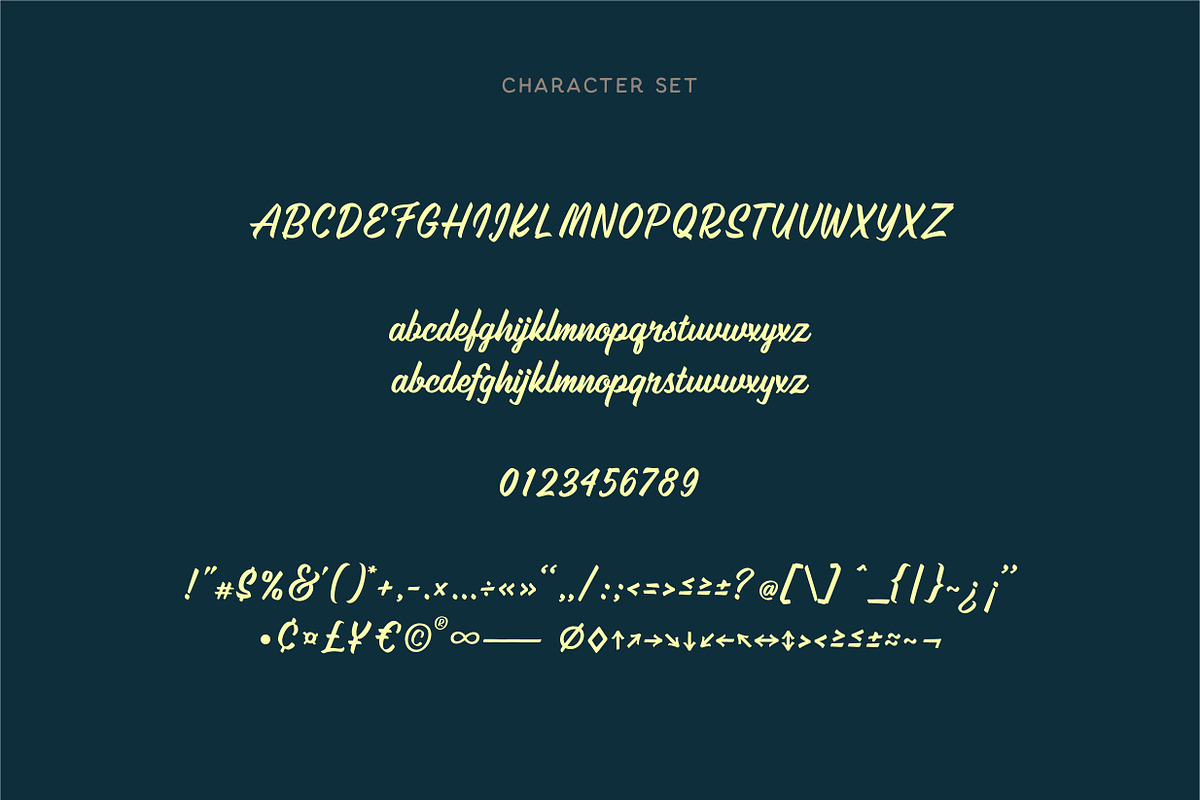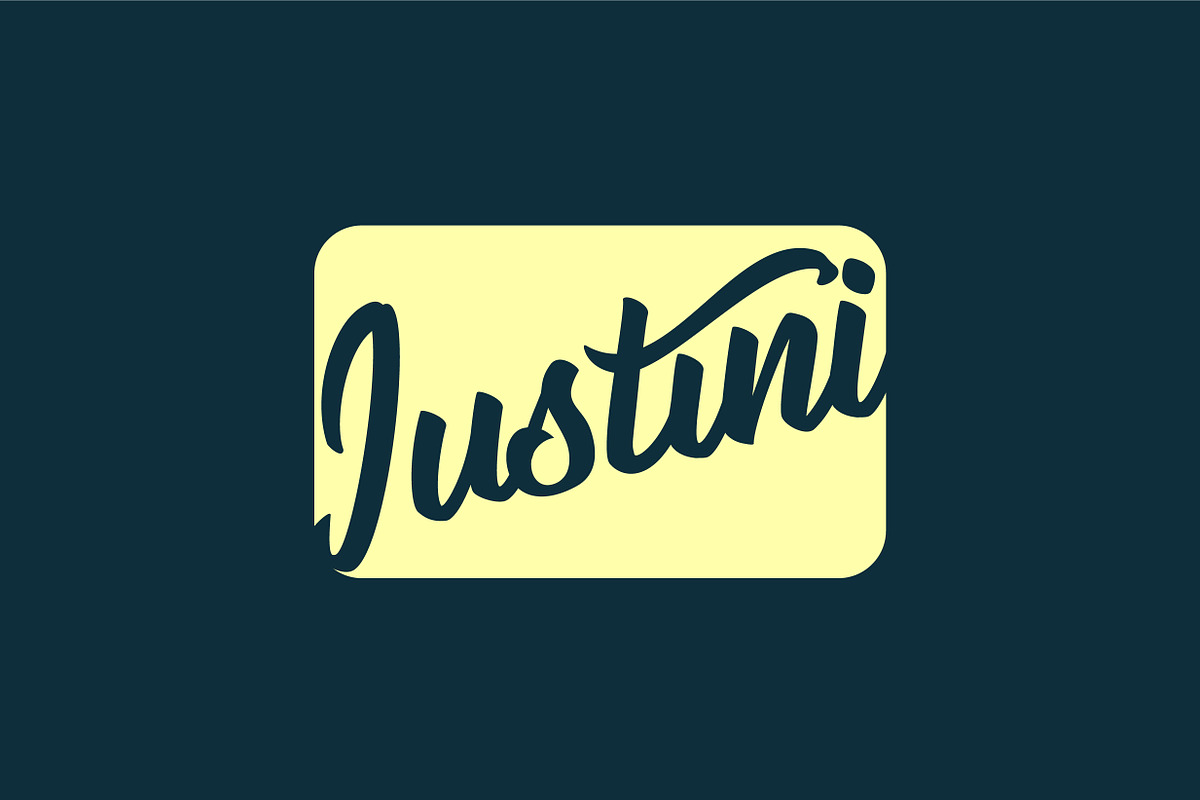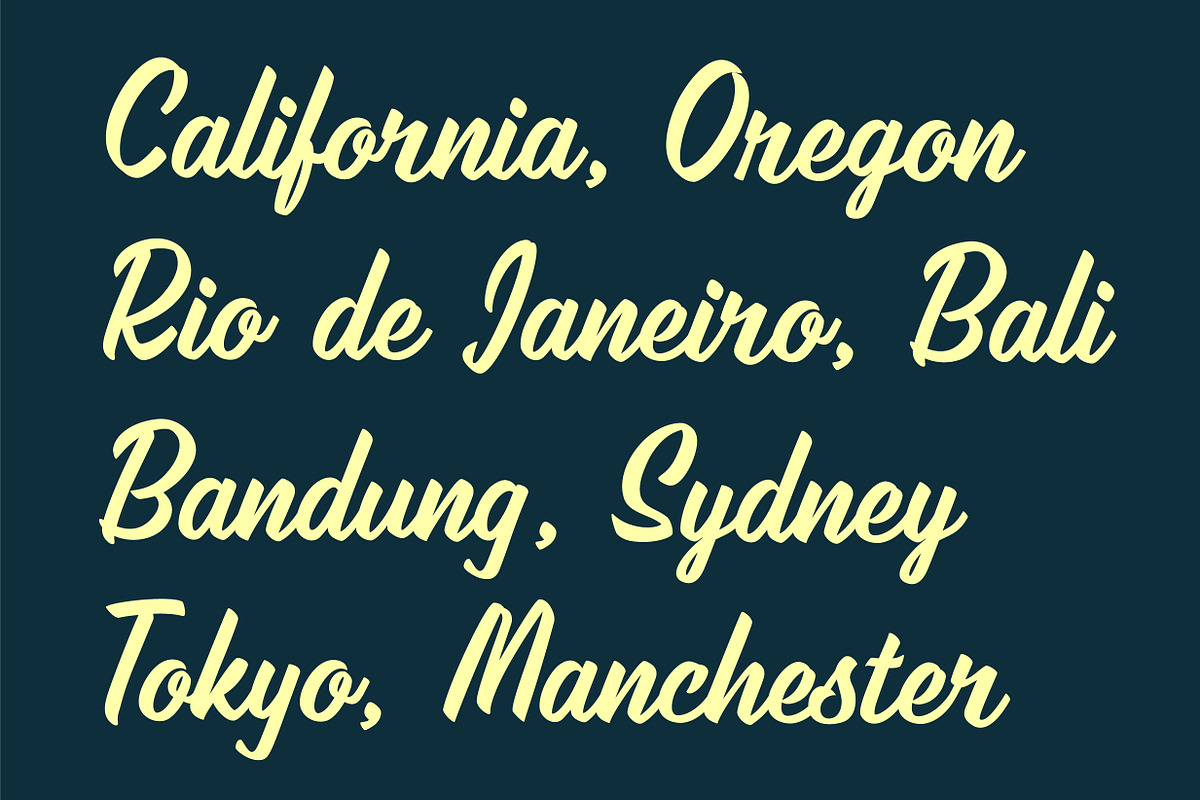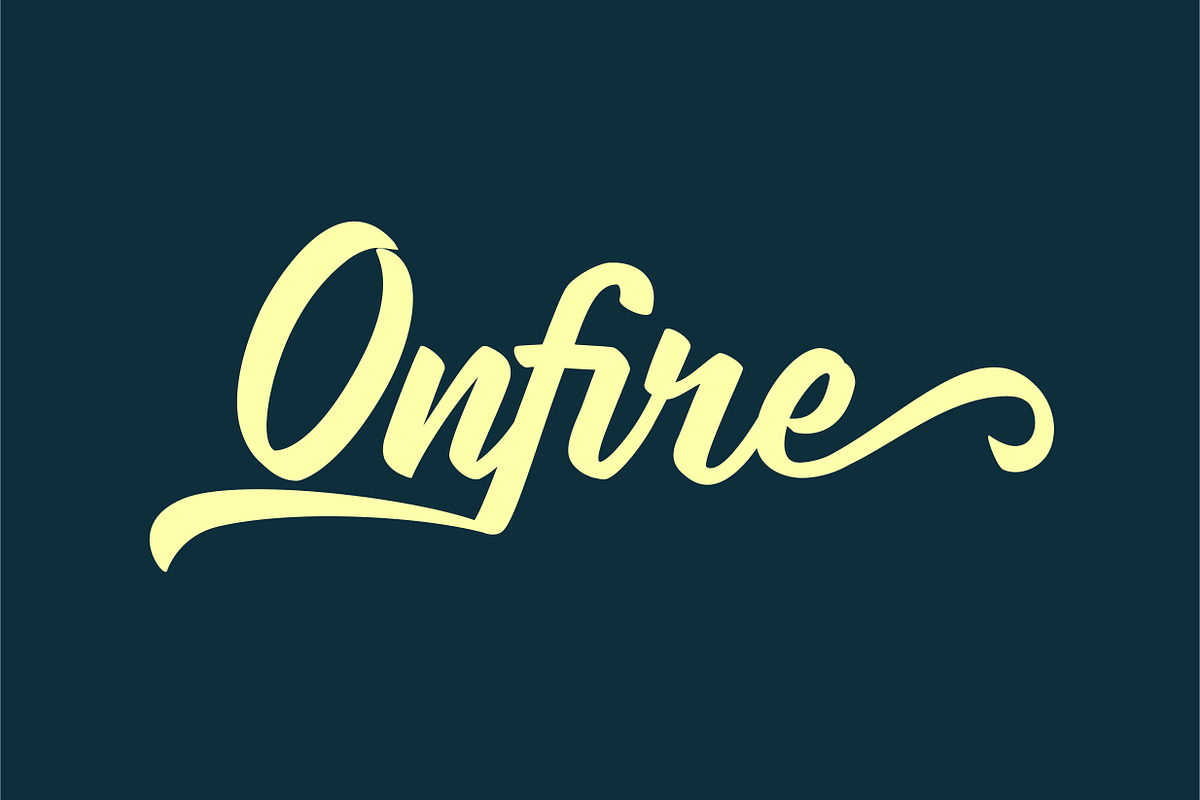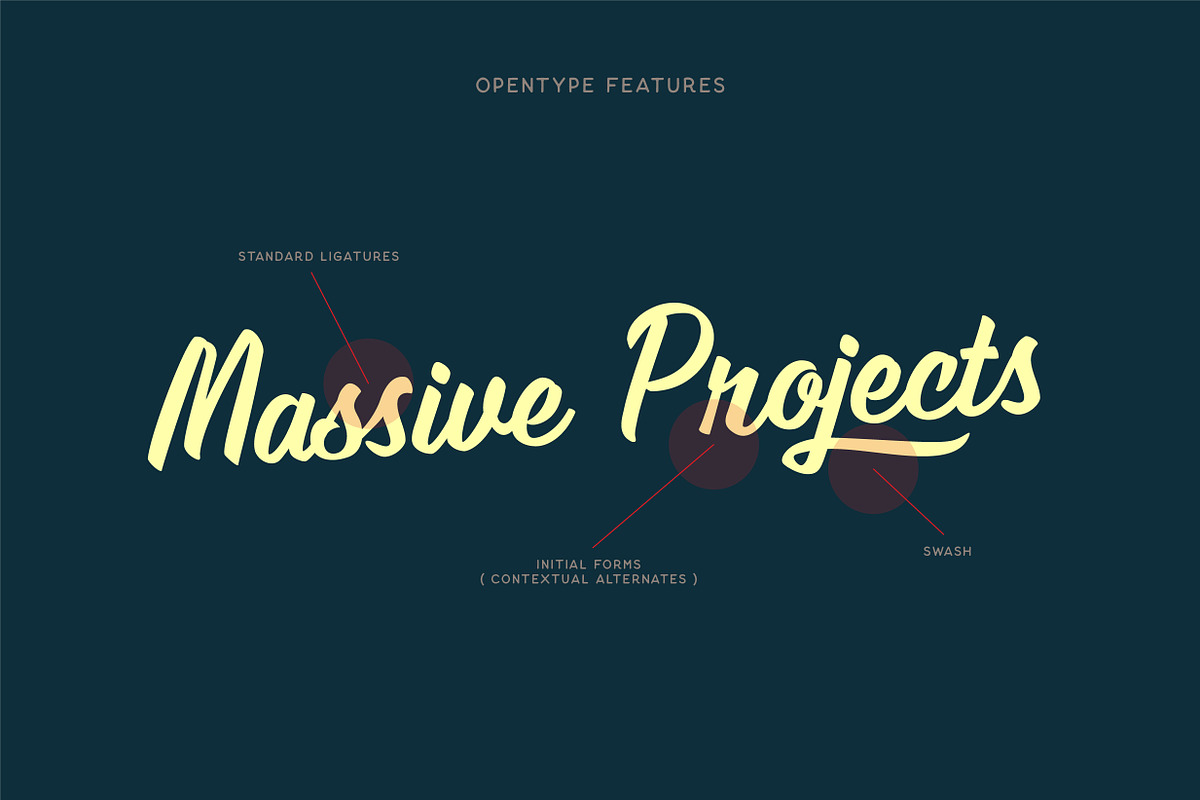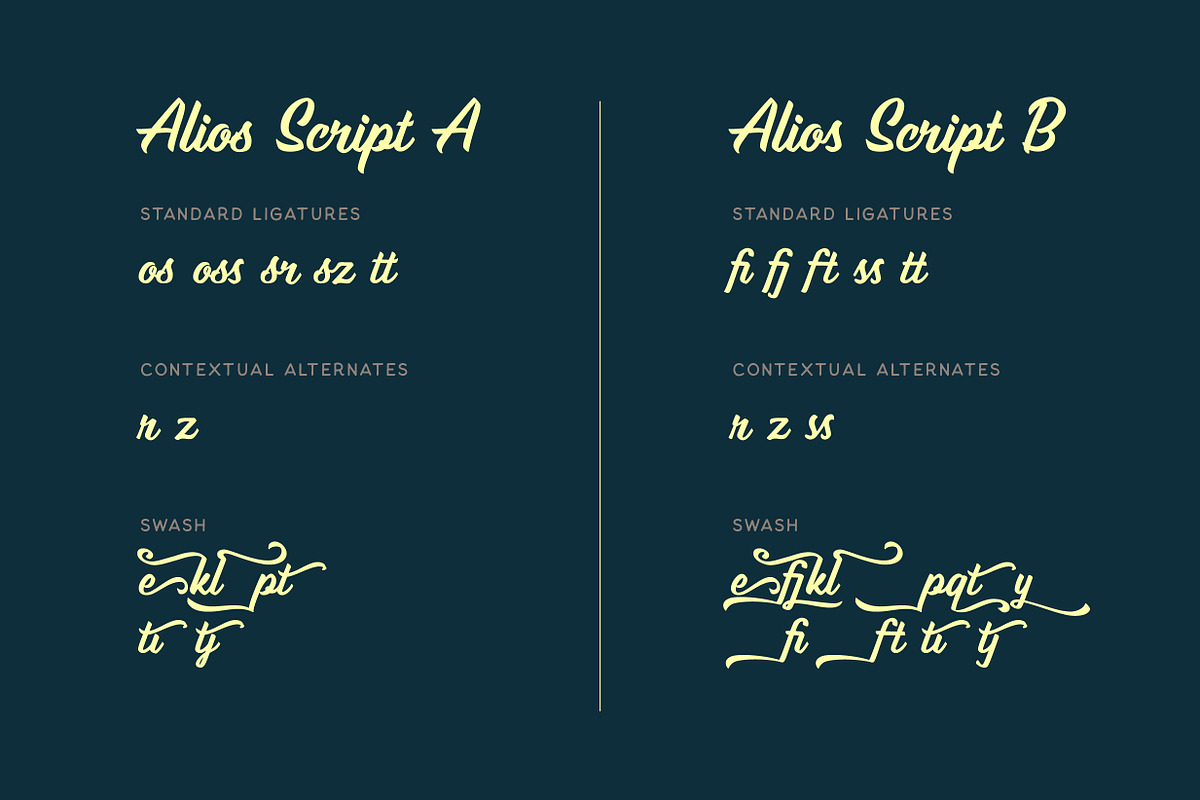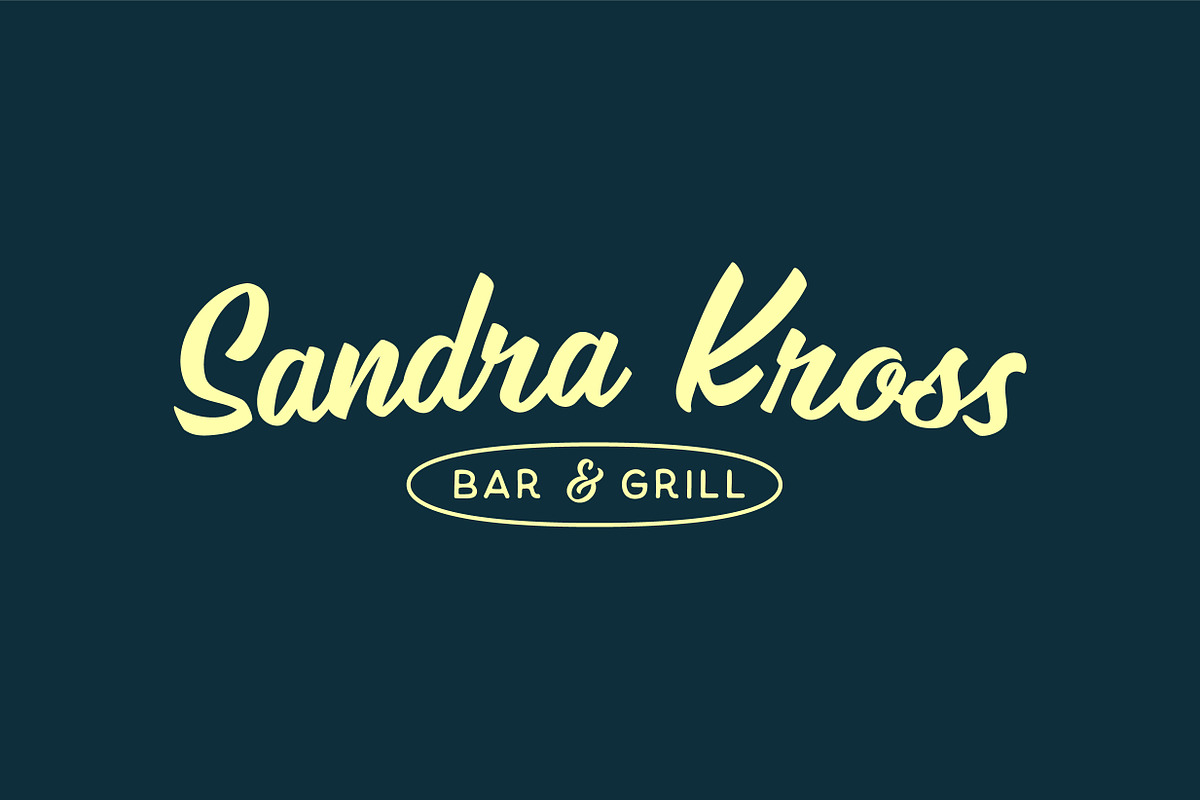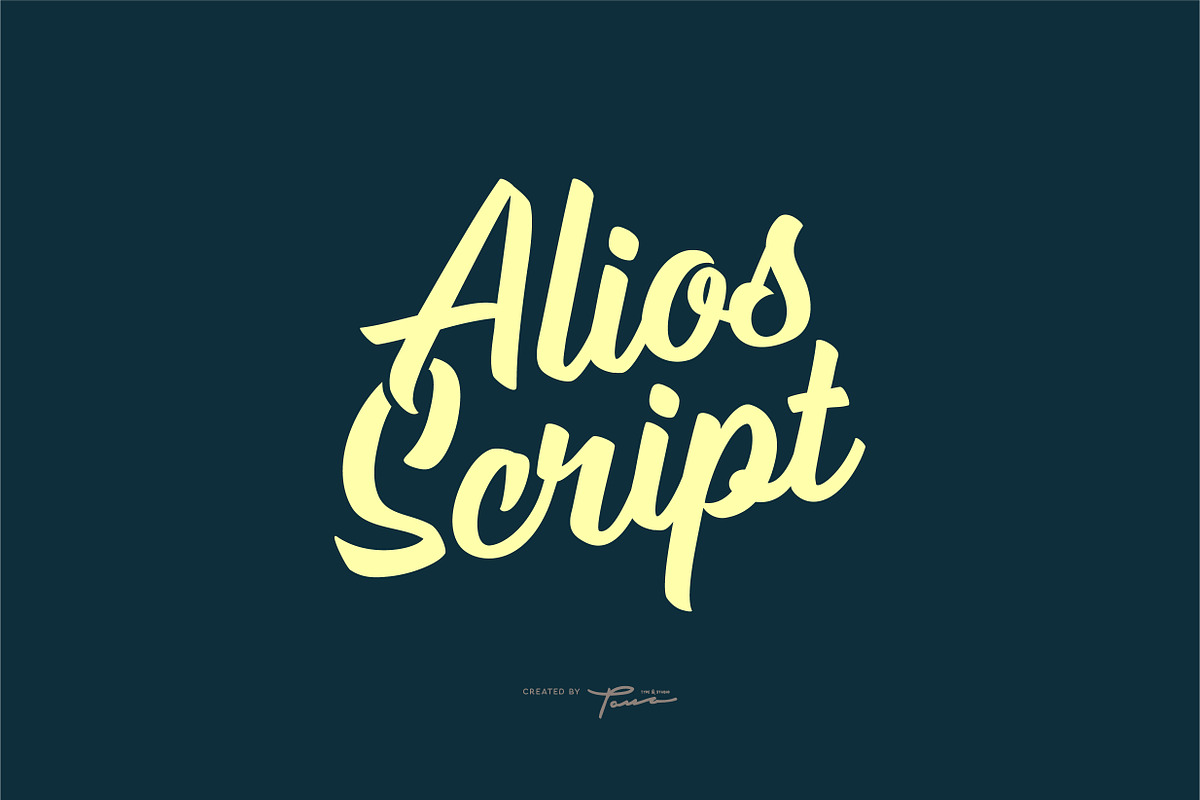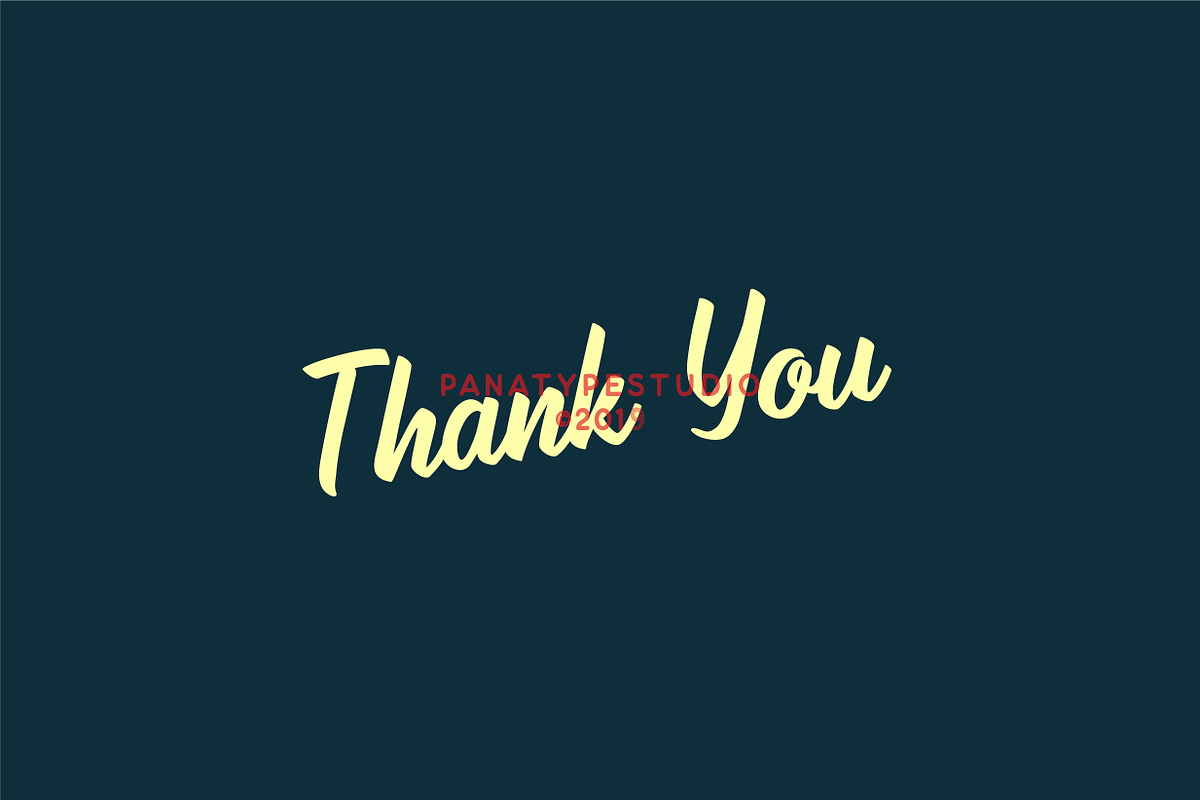
Alios Script
Alios Script is a font inspired by street signage writing with hand painted techniques, made as natural as possible and meticulous for each letter. This is perfect for all design needs such as signage, headlines, logotypes, advertisements etc. This font has opentype features that are very easy to use.
Opentype Features:
- Contextual Alternates (initial form)
Language Support: Basic Latin - Western European - Central European - South Eastern European